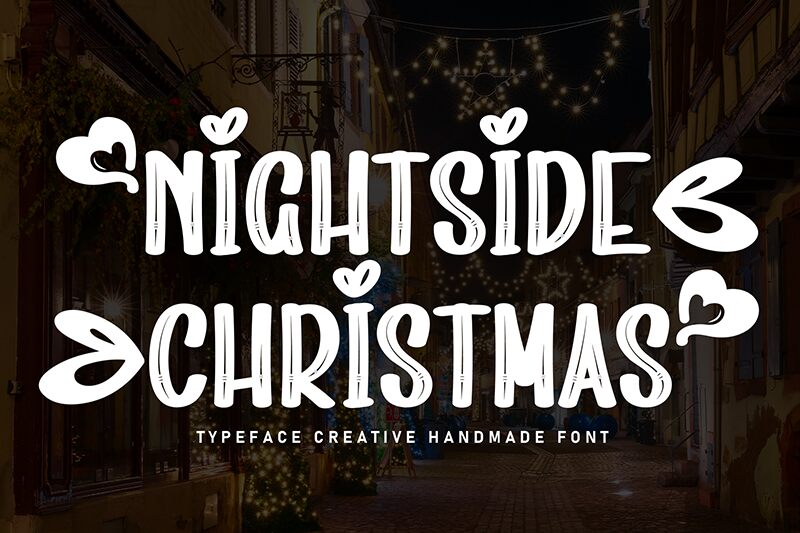
Nightside Christmas font is a free brush font designed by Scratchones, offering a whimsical and festive touch to your design projects. This font captures the spirit of the holiday season with its lively and decorative style. Perfect for bringing a casual and friendly vibe, it adds artistic and contemporary flair to any application.
Great for holiday cards, posters, and gift labels, Nightside Christmas also works well on social media graphics, website headers, and product packaging. Use it for DIY projects, invitations, or branding for that festive and expressive touch.